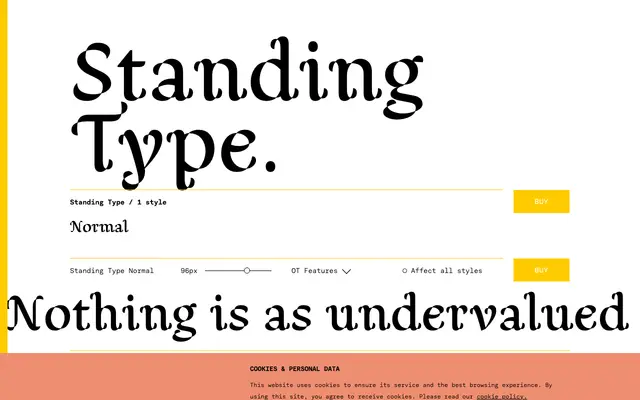
Standing Type
TYPE BY · Maurice Göldner · 2012
A stencil-effect display face by Maurice Göldner, drawn from humanist minuscule pen strokes and first shown at a 2012 Antwerp exhibition on the history of the stencil letter.
The design takes its rhythm from broad-edged pen calligraphy, with deliberate near-breaks in the strokes that create a stencil appearance without true stencil construction. It draws a direct lineage to typefaces such as Hans Bohn's Allegro (1936) and was released as part of the OurType Stencil Series. Available in a single Normal style with discretionary ligatures and oldstyle figures, it covers an extended Latin character set across a wide range of Western European languages.
Standing Type is classified as display owing to its stencil-effect construction derived from humanist minuscule calligraphy; the near-break strokes give it a decorative character that limits its use to titling and short-form settings.